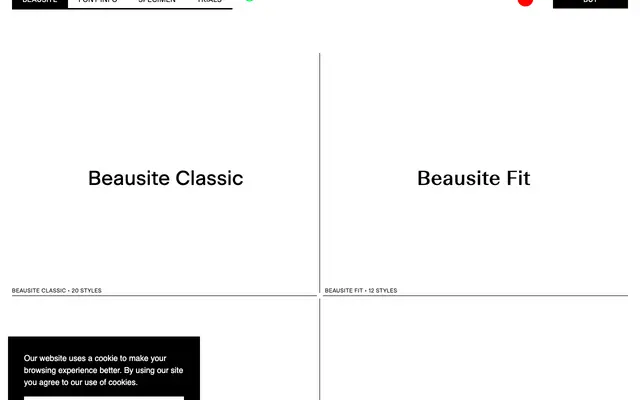
Beausite specimen from Fatype
A four-subfamily type system that grafts graduated stroke contrast onto a neogrotesque skeleton, offering four distinct contrast levels from near-monotone to high-contrast Art Deco in feel.
Each of the four subfamilies — Classic, Fit, Slick and Grand — represents a different degree of stroke contrast, allowing designers to shift between moods while remaining within a coherent system. Classic runs the deepest range with ten weights plus italics, from Ultralight to Ultrablack, while Fit, Slick and Grand each offer six weights with italics. The Art Deco reference is worn lightly; this reads as a contemporary neogrotesque first, with contrast as a tuning mechanism rather than a period affectation.
Built on a neogrotesque skeleton with varying degrees of stroke contrast across four subfamilies, referencing the Art Deco high-contrast sans tradition while retaining neogrotesque structure.